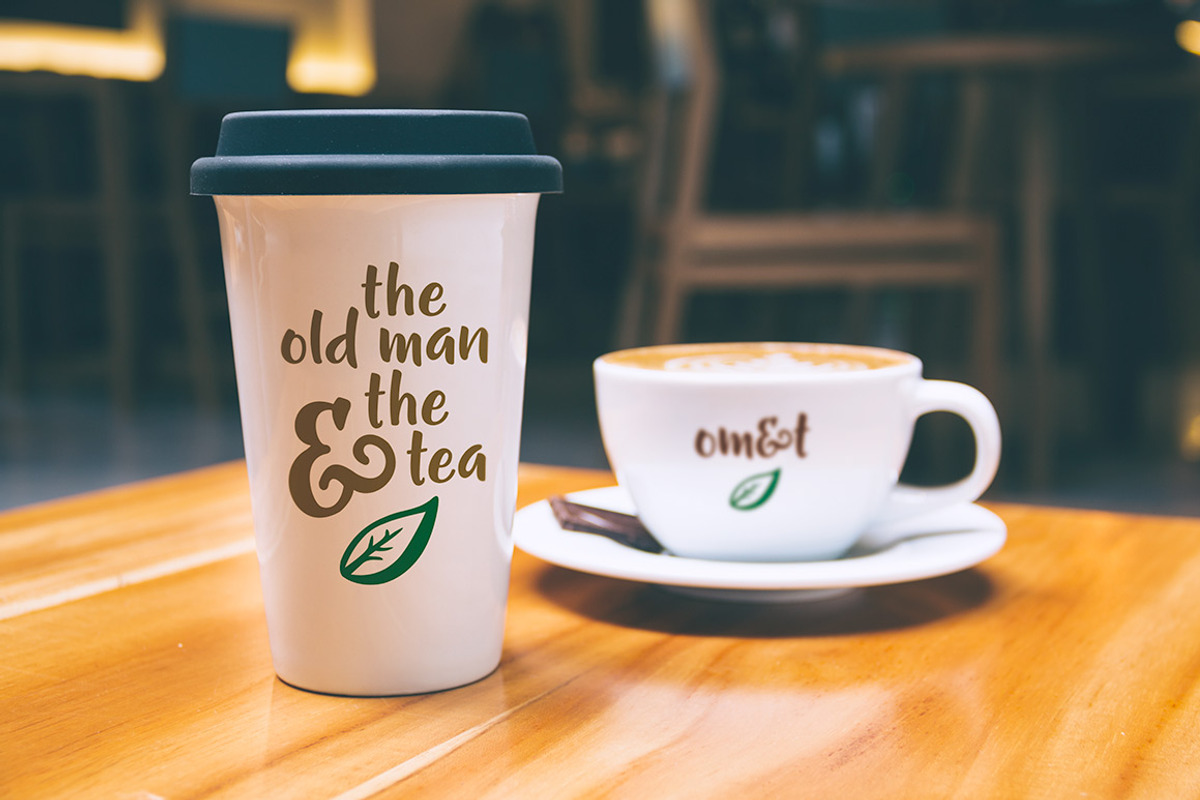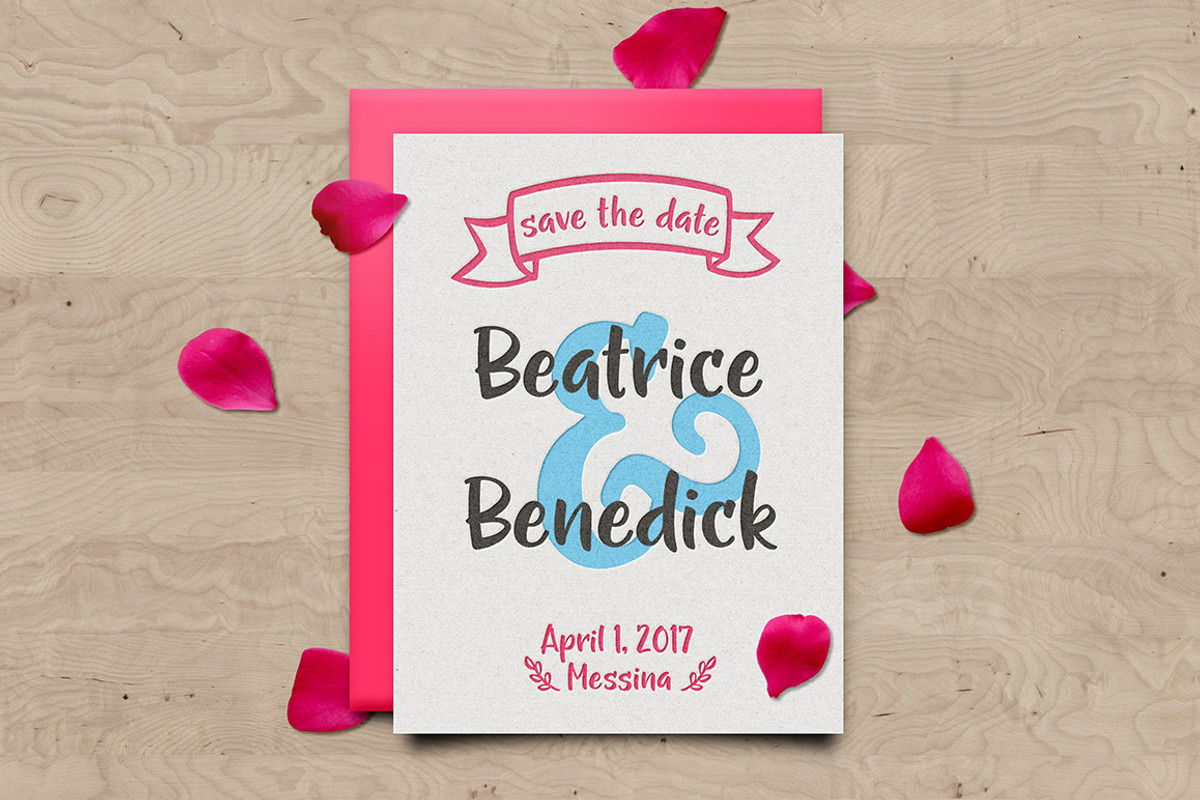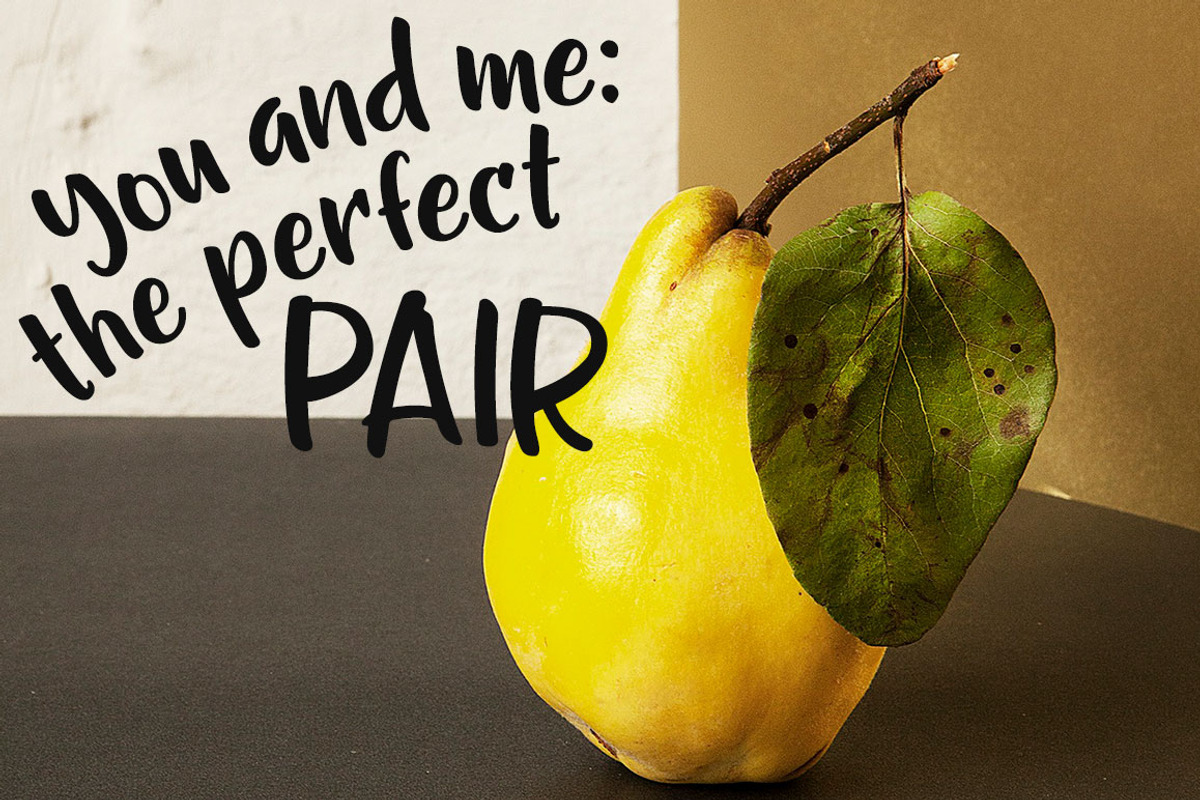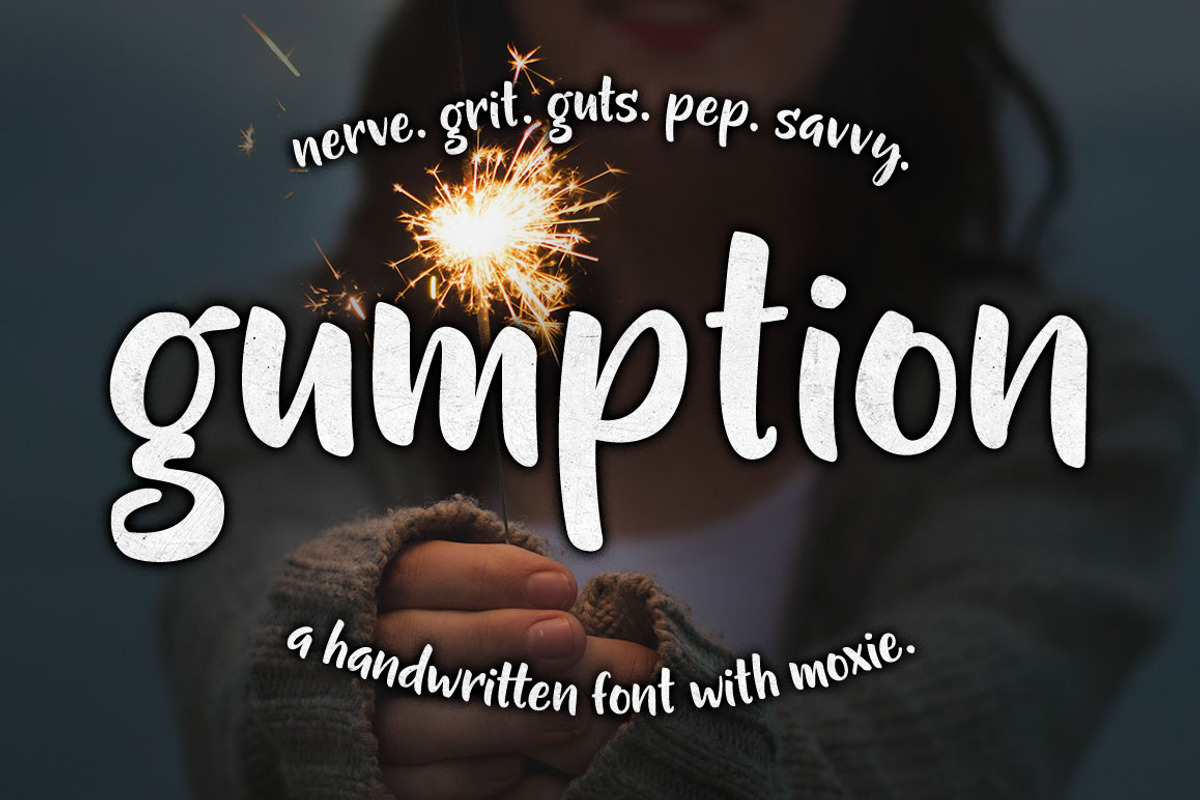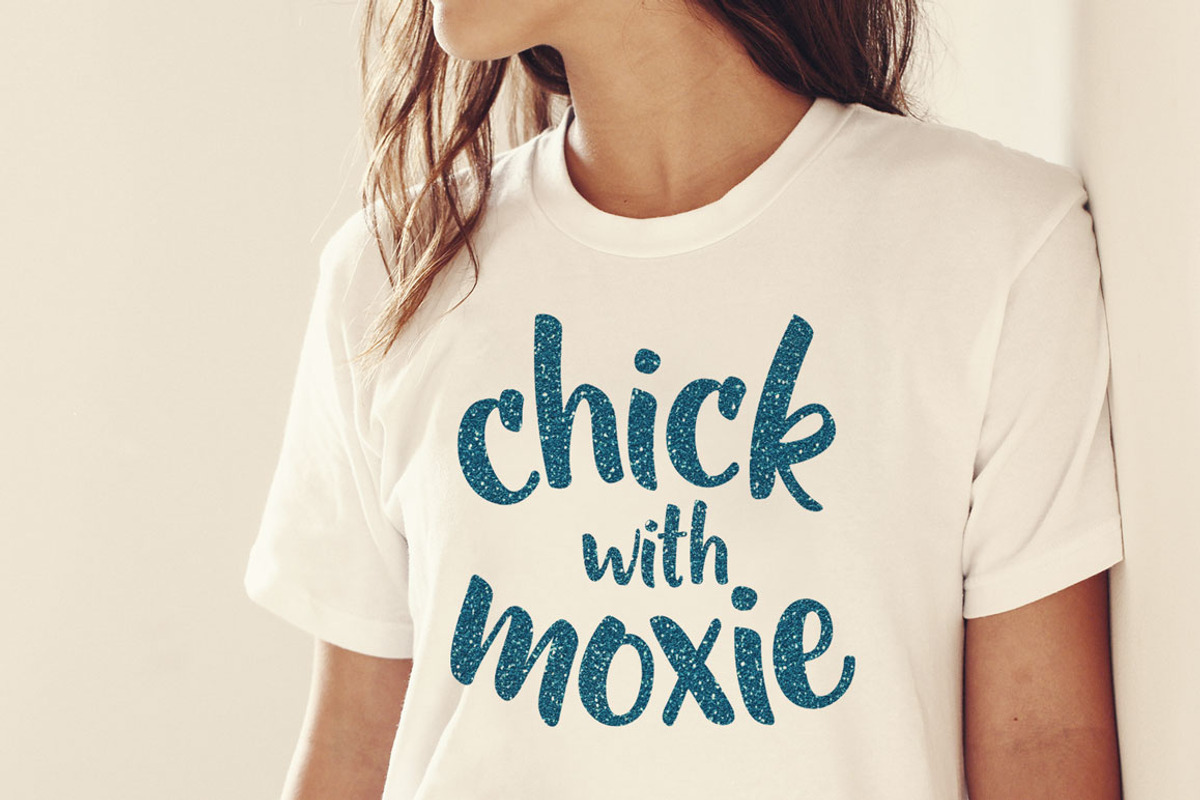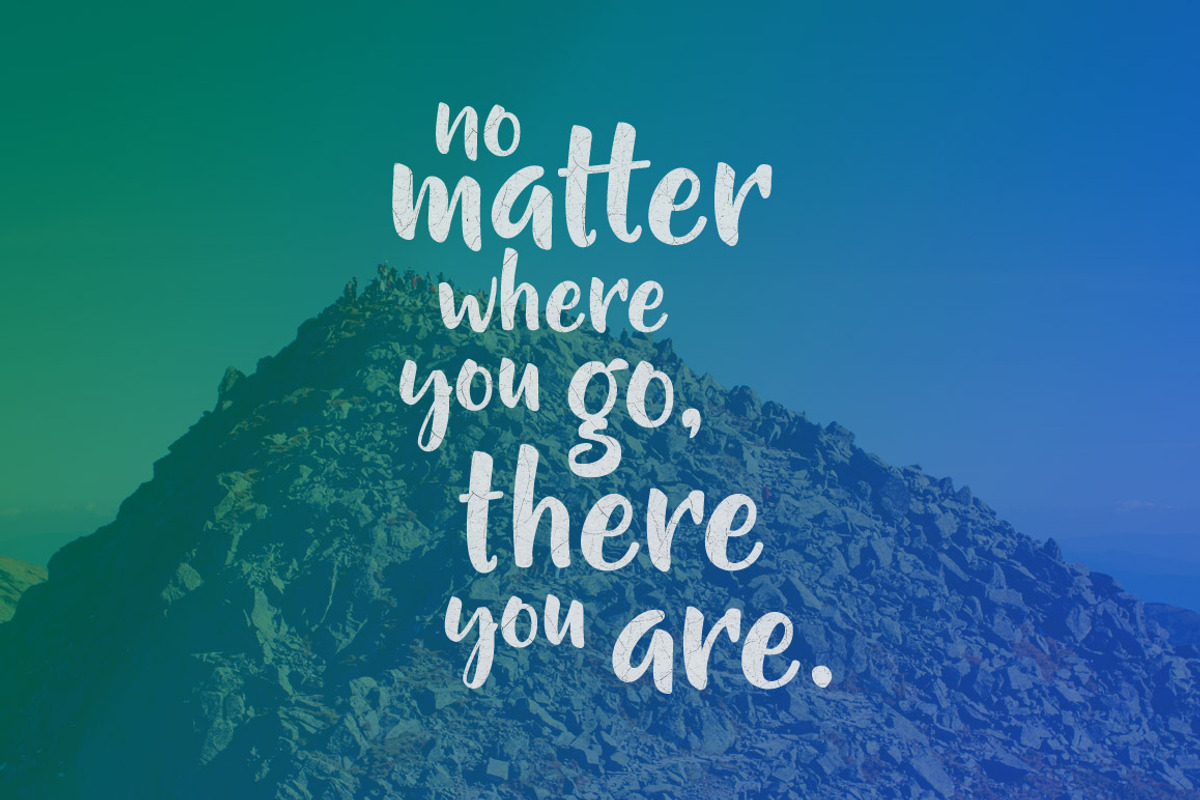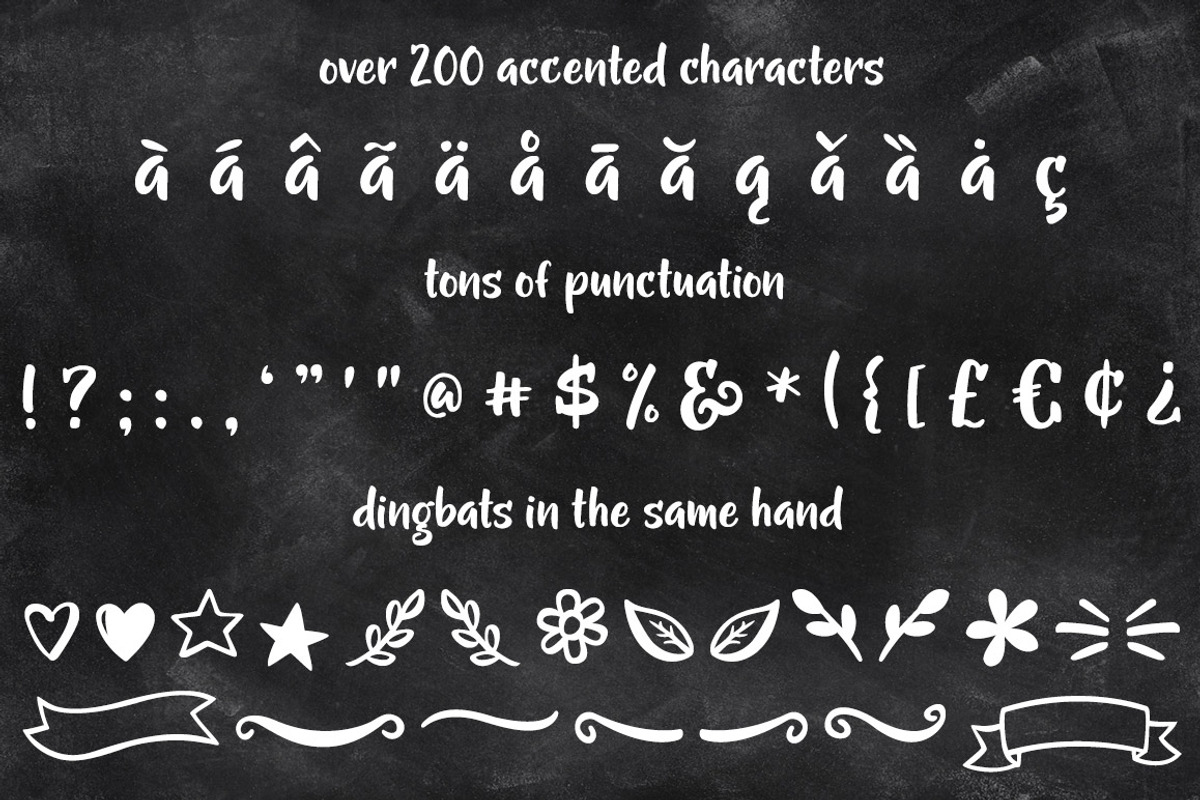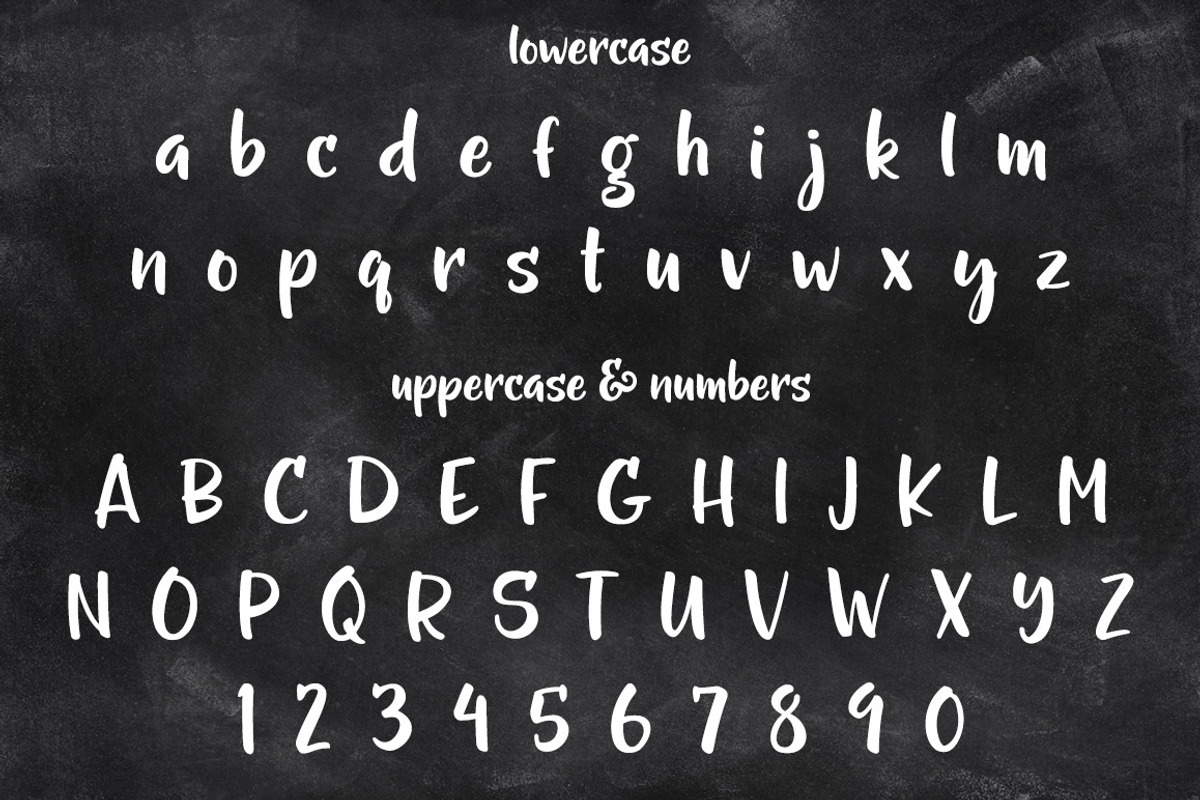
Gumption - handwritten font
Gumption - handwritten font by Missy Meyer is a font selected for branding, posters, packaging, typography.
- Gumption features: 400 glyphs Uppercase and lowercase double-letter ligatures for 15 letters: B, C, D, E, F, G, L, M, N, O, P, R, S, T, and
- 400 glyphs
Why Gumption - handwritten font is worth a look
Gumption - handwritten font by Missy Meyer fits naturally into Branding, posters, packaging, typography.